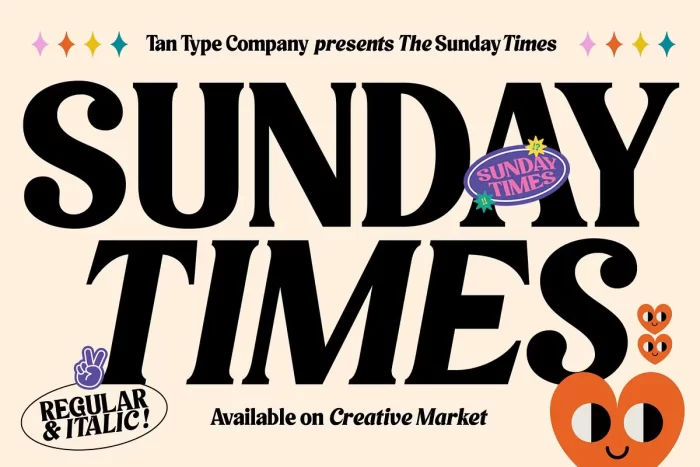
Tan Sunday Times Font
TAN – SUNDAY TIMES is funky groovy serif available in regular and italics. Evoking the good ol’ times with its retro aesthetic.